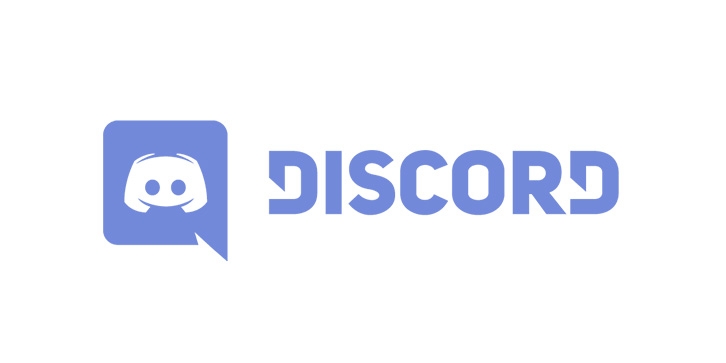
What Font Does Discord Use For The Logo?
The Discord logo is a modified version of Uni Sans. The fonts they use throughout the desktop app are Whitney, Helvetica Neue, Helvetica, and Arial. Here's the download link.
Important! There is a whole new redesigned version (remake) of Uni Sans called Uni Neue.
The Uni Sans font family includes 14 weights - seven uprights with seven italics.
It is characterized by excellent legibility in both - web & print design areas, well-finished geometric designs, optimized kerning, excellent web-font performance and legibility etc.
Inspired by the classic grotesque strong typefaces like DIN and Dax - Uni Sans has his own unique style in expressed perfect softened geometric forms.
The font family is most suitable for headlines of all sizes, as well as for text blocks that come in both maximum and minimum variations.
Uni Sans font styles are applicable for any type of graphic design in web, print, motion graphics etc and perfect for t-shirts and other items like posters, logos.